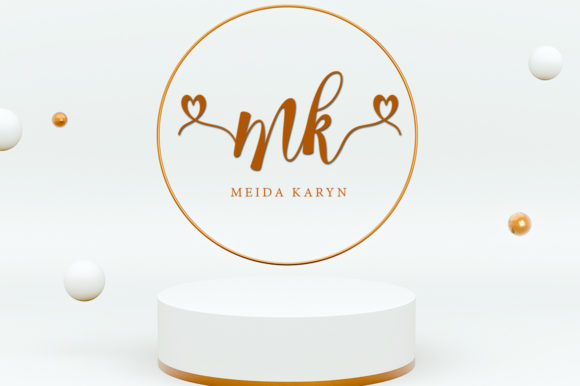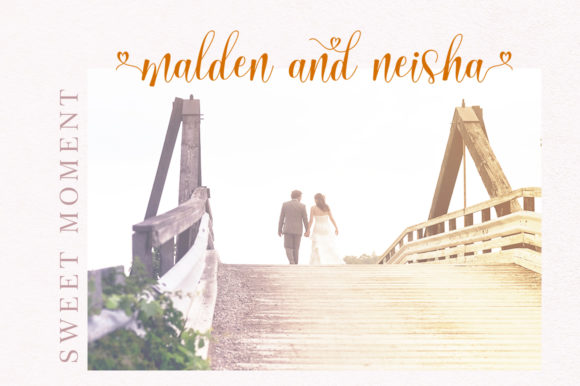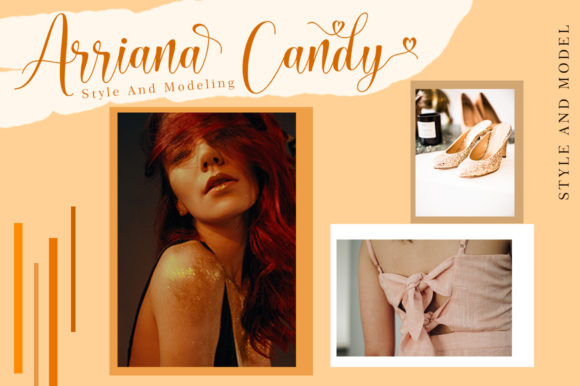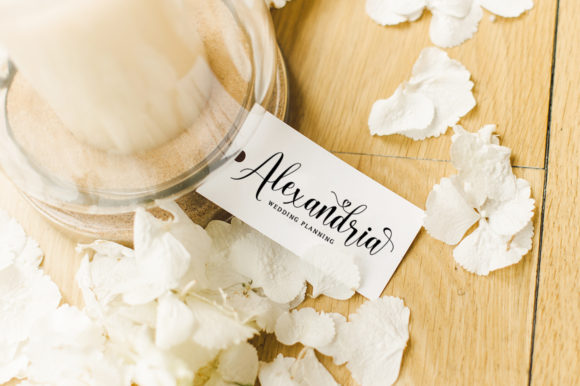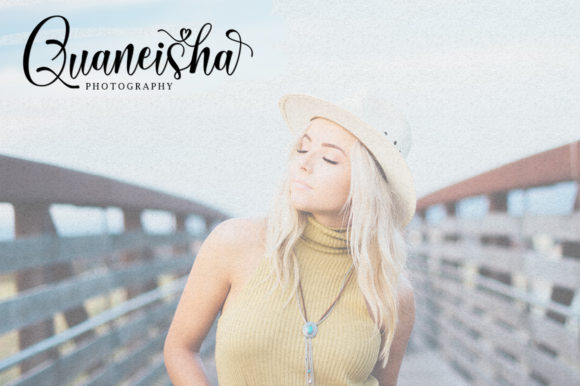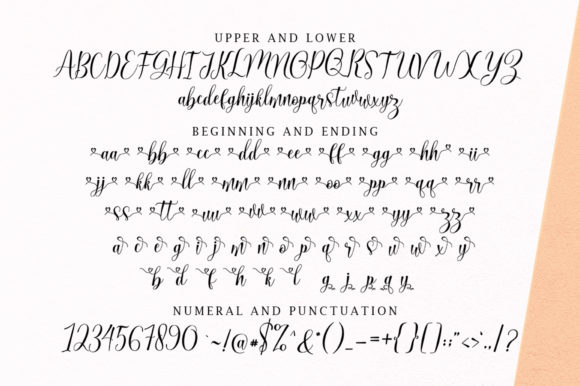
Monteray Font
About Monteray Font
Monteray is an elegant and flowing handwritten font. It is PUA encoded which means you can access all of the glyphs and swashes with ease! It features a varying baseline, smooth lines, gorgeous glyphs and stunning alternates. It maintains its classy calligraphic influences while feeling contemporary and fresh. Fall in love with this beautiful font and bring your projects to the highest levels!